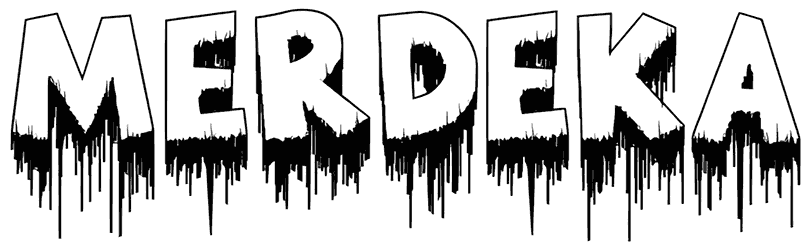
Merdeka Font
Here we come again to proudly introduce an all-caps horror font, the same as Merdeka, to you. This 3D font comes with dropping characters and looks perfect for any kind of graphic content that needs a vibe of fear, tenderness, professionalism, or jauntiness.
Aside from not supporting numbers, this glamorous artwork can boost the level of your creative ideas, like stickers, blog posts, packaging, logos, or brochures. Also, visit our collection for daily updates and more artistic products.